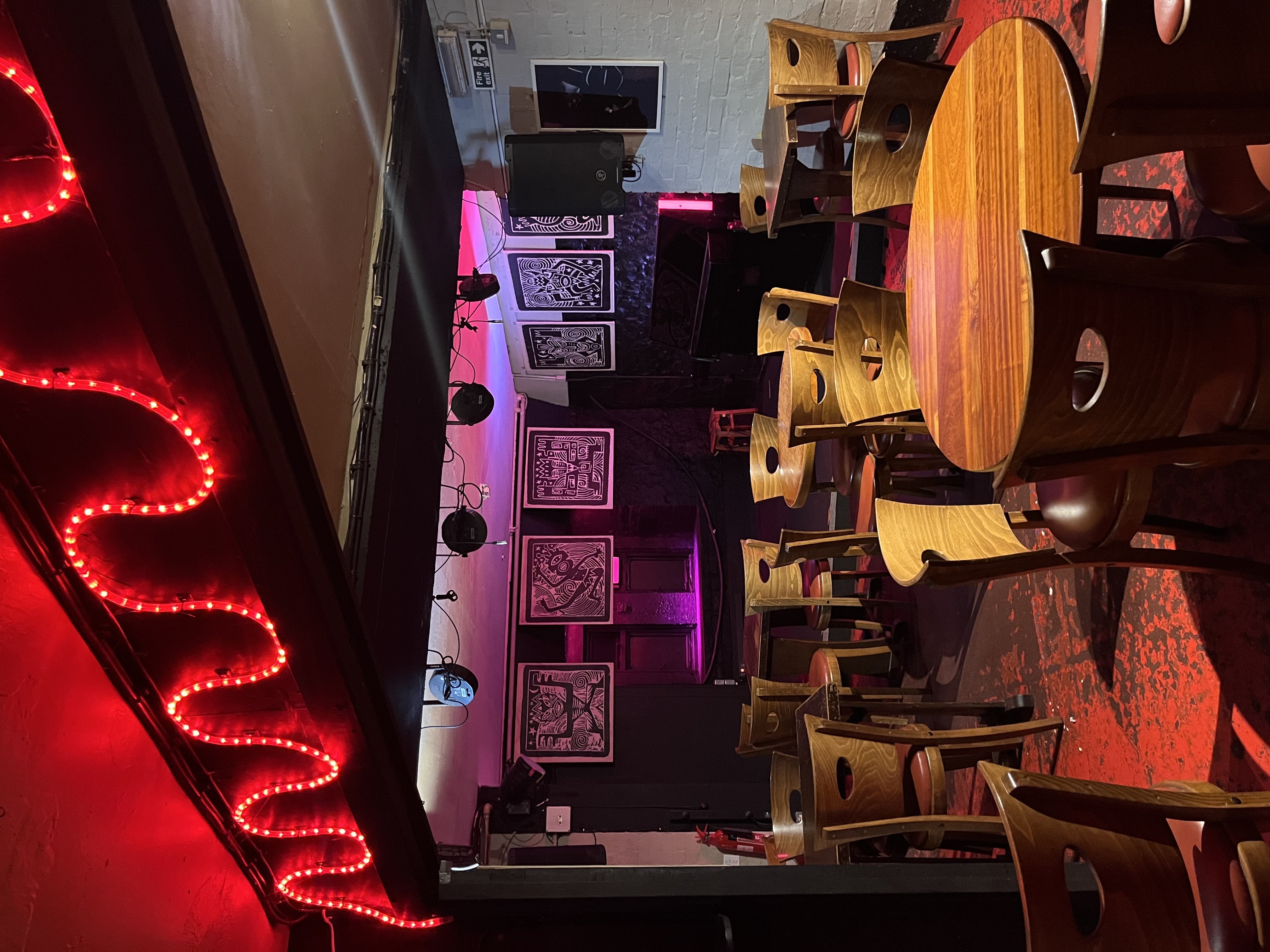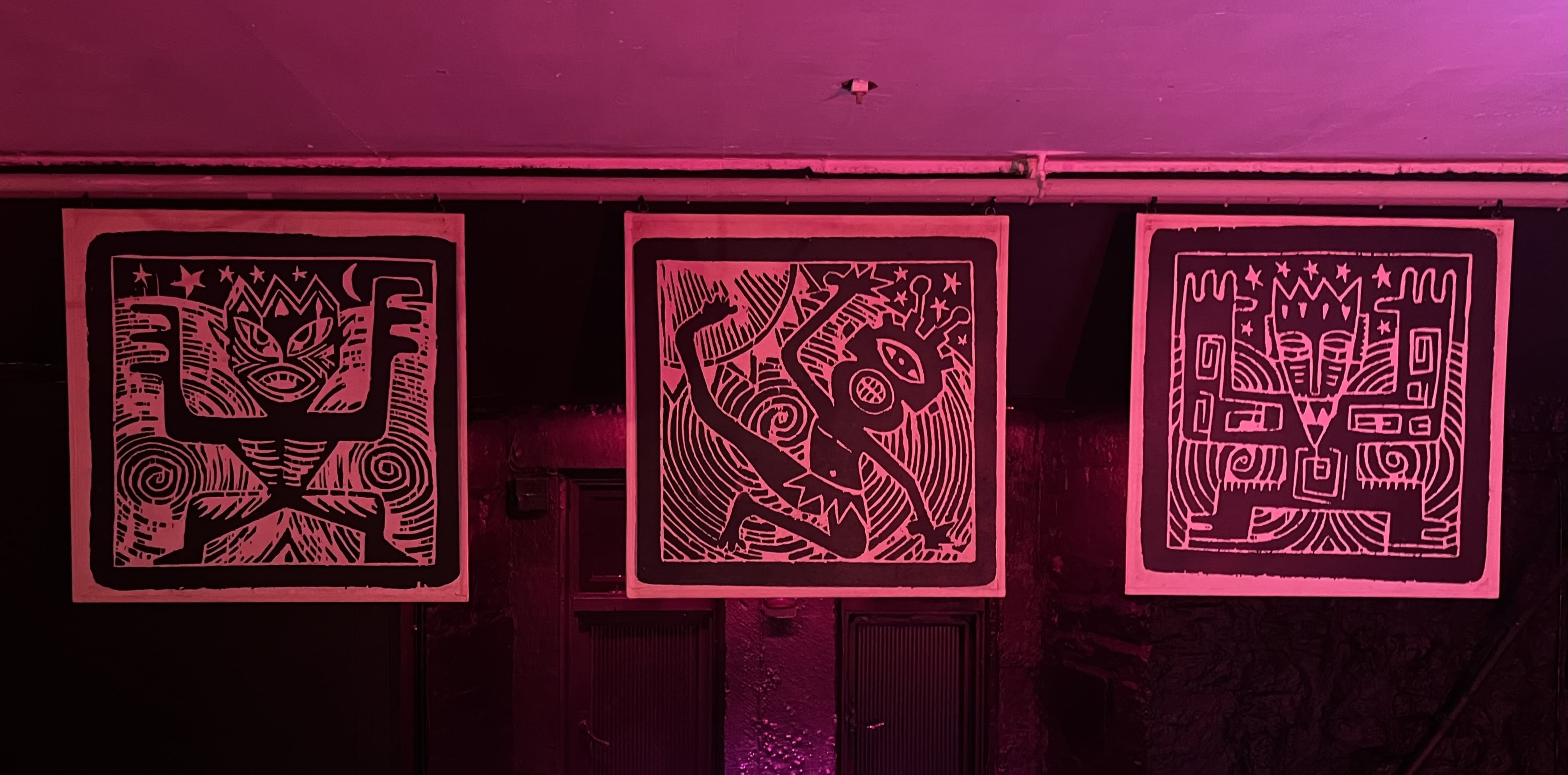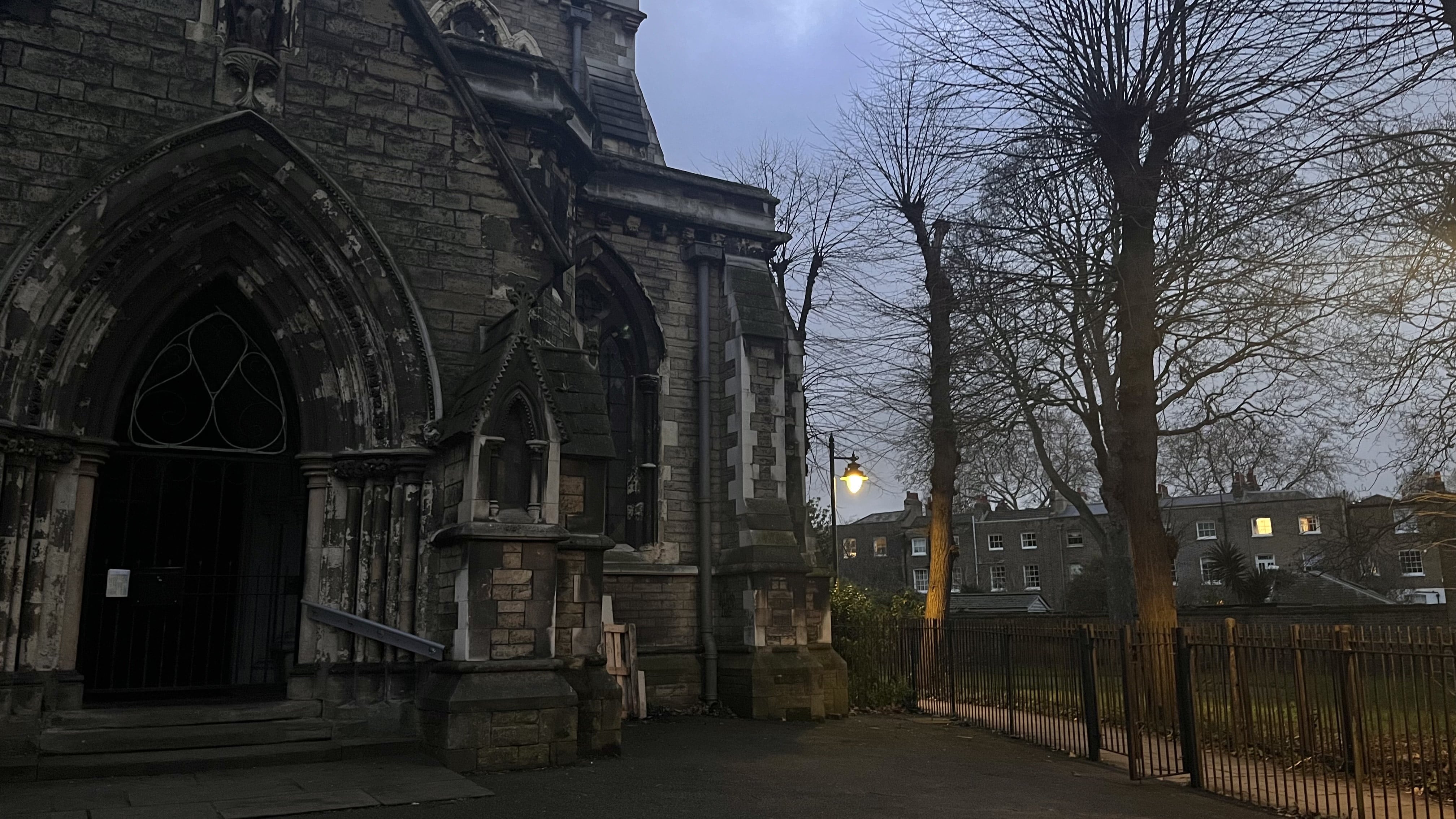
Ragtime Display calls to those who favor outgoing and loud styles of type as opposed to smoother, minimalistic, classic styles. Based on the mix of gothic 19th-century typefaces of St. Giles' church with the mazy, contemporary linework designs of the stage art in the church's crypt-turned jazz club, this trippy typeface accentuates any animated form of writing or artwork. A fusion of both sites, the gothic-serif letters combined with the linear intricacy portrays the contrasting yet uniting aesthetic, material, and atmospheric relationship between the two sites, all within a font.